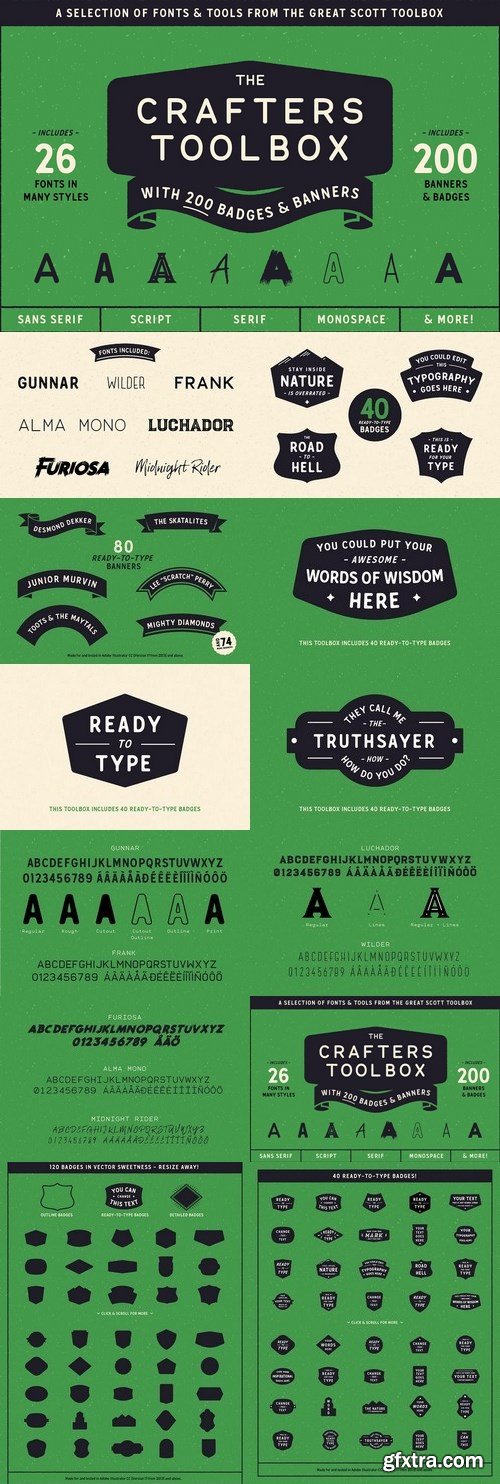
CM - The Crafters Toolbox (Font bundle) 1456152
PROUDLY PRESENTING THE CRAFTERS TOOLBOX In this toolbox you will find 7 of GSCO:s most popular typefaces that together has 26 styles. You'll find sans serifs, brush scripts, handwritten type and monospace - everything that you need for your next creative project! ALSO: Ready-to-Type badges and banners! Over the years of client work Great Scott has made a number of logos, badges and banners. Well - now we've cleaned up our old work files put them together in this toolbox for everyone to use. Just open up the .AI-file and start typing!
FONTS: